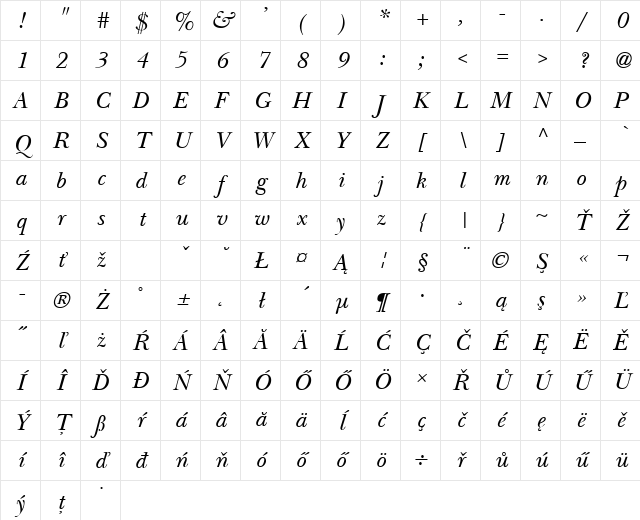
Complete Hu_Nebraska Italic Regular glyph index. Displaying only characters natively supported by Hu_Nebraska Italic Regular font.
Hu_Nebraska Italic is a composed and adaptable typeface that performs quietly and consistently across a wide range of design contexts. The slanted form adds forward momentum and visual energy.
Pro Tip: Use Hu_Nebraska Italic for emphasis, pull quotes, and subheadings where its slanted energy can add rhythm to the layout.